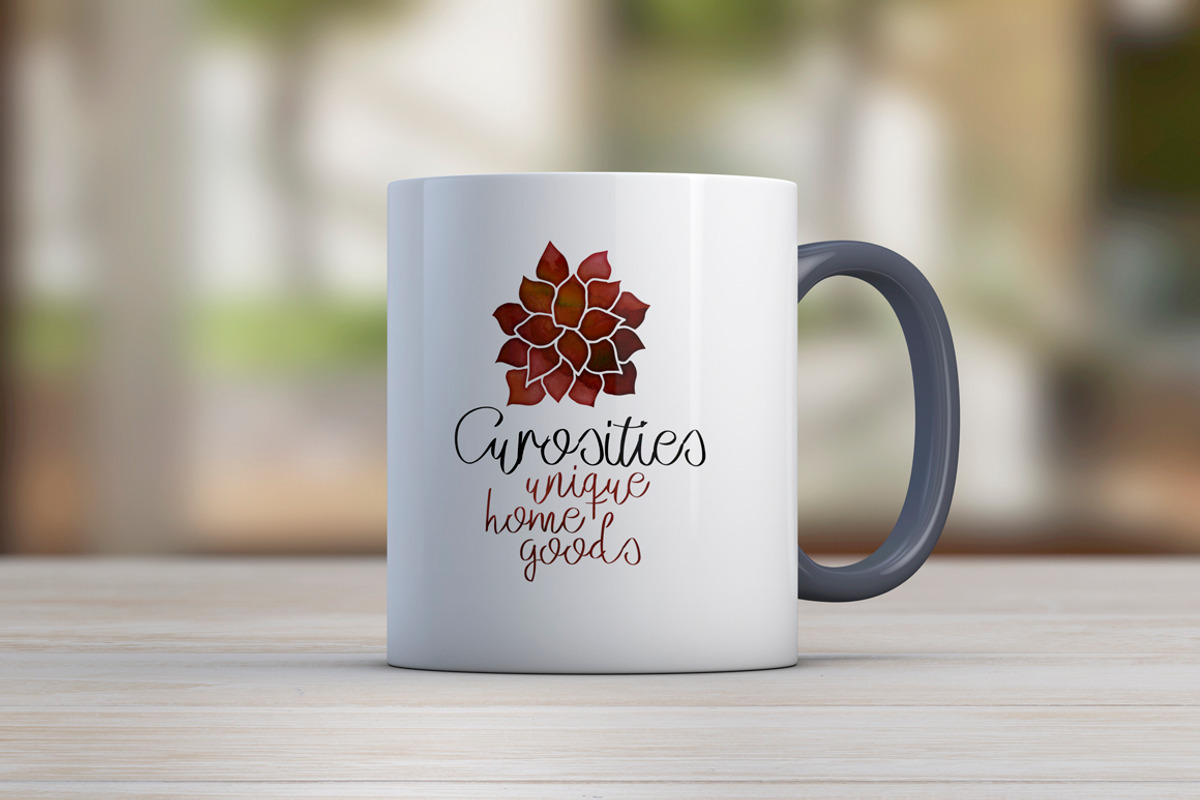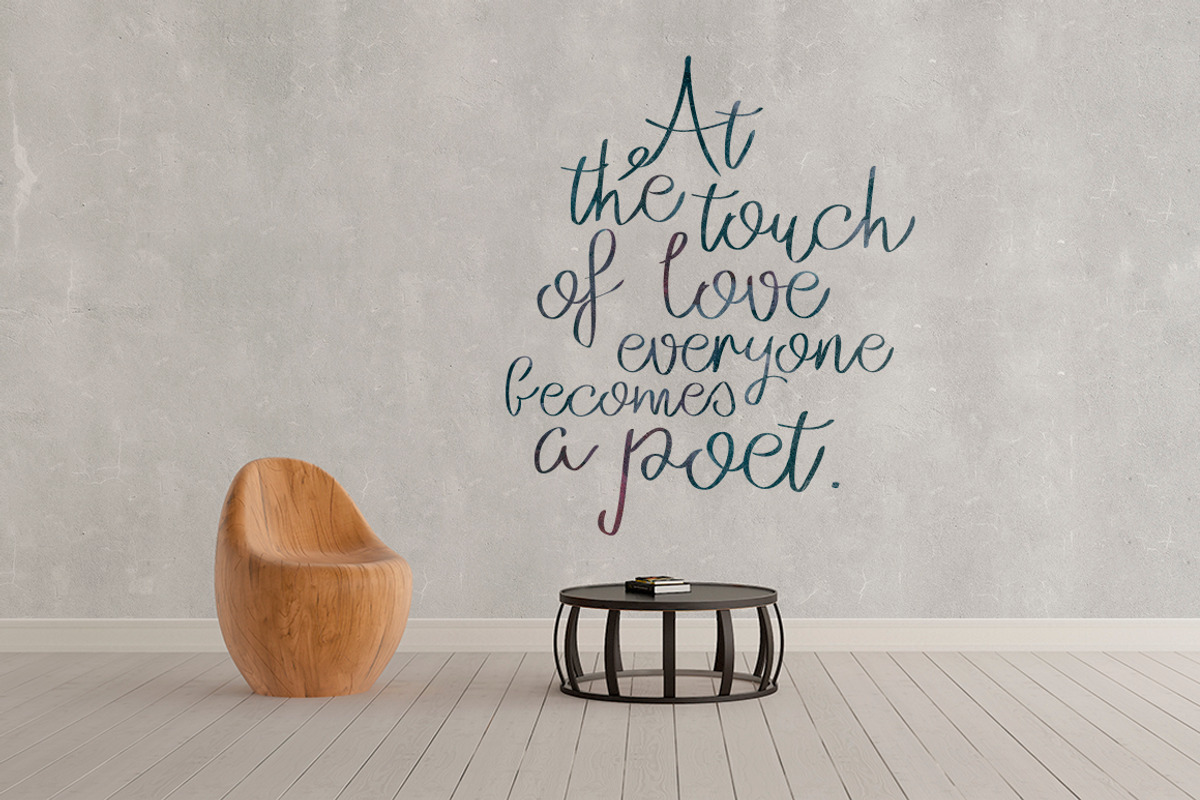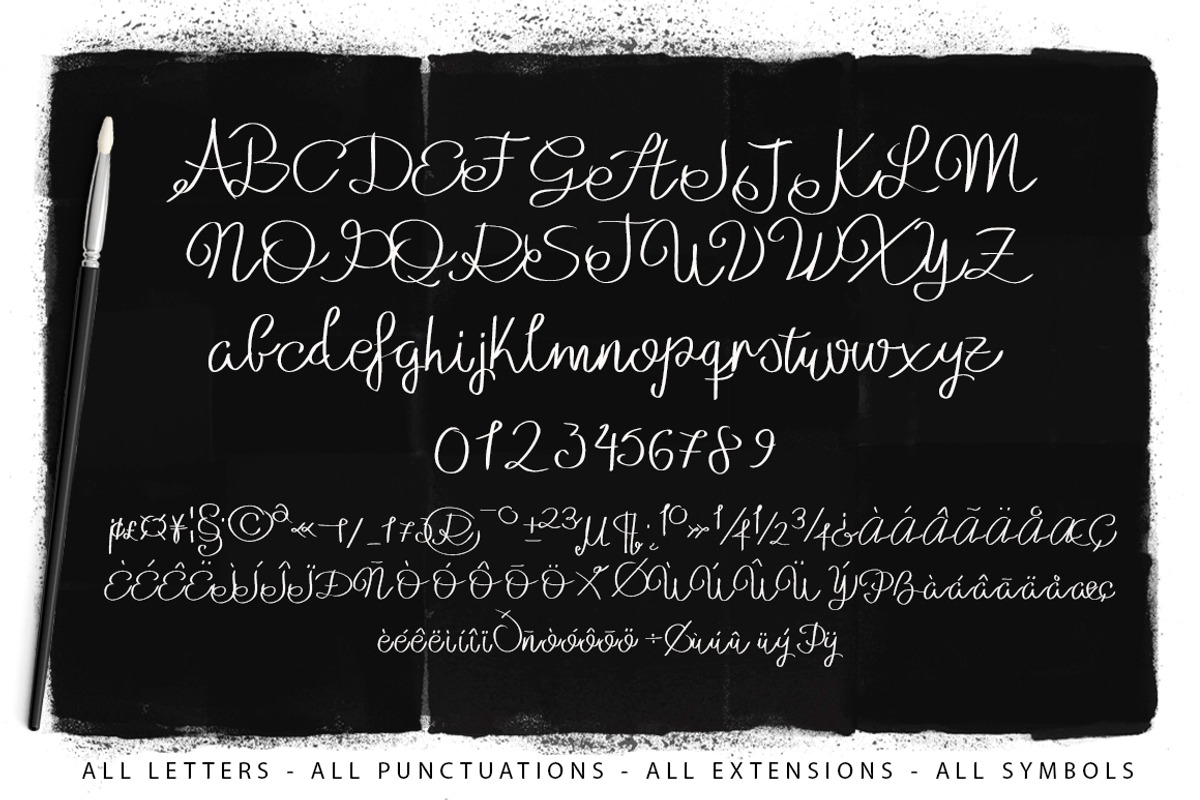
Julianne Script Typeface
Julianne Script Typeface by MoonfishStudio is a font selected for branding, posters, packaging, typography.
- Characters available: all letters, all numbers, all puntuations, Lowercase and Uppercase, all symbols.
Julianne Script Typeface by MoonfishStudio fits naturally into Branding, posters, packaging, typography.